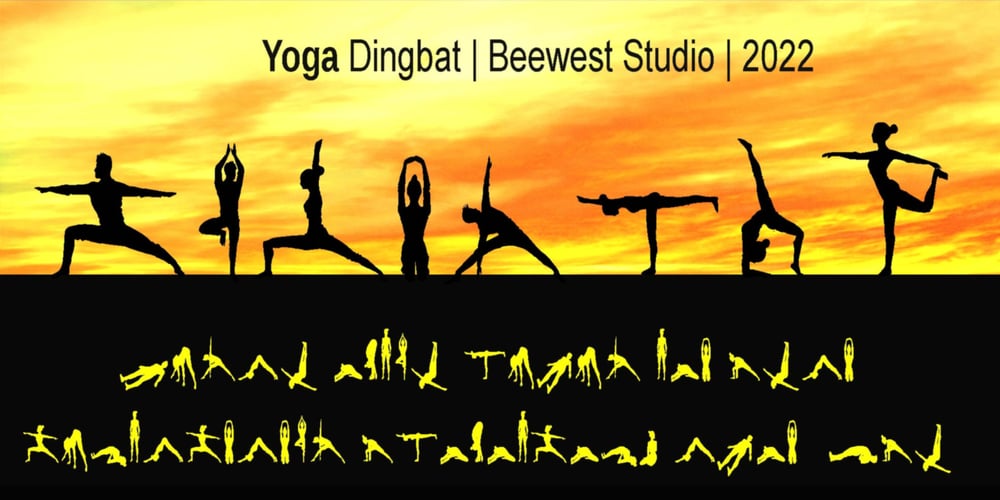
Yoga Dingbat
Yoga Dingbat font
Yoga Dingbat Font Family was designed by bsmbang wisudyantoro and published by Beewest Studio. Yoga Dingbat contains 1 styles and family package options. The typeface “YOGA Dingbats Symbols Set” is designed at 2022 for the font foundry Beewest Studio by B Wisudyantoro. The Basic Icons Set is a display typeface that inspired by the Yoga poses such as : Adho Mukha Shvanasana, Ardha Chandrasana, Astavakrasana.Baddha Konasana.Ankusasana from Sritattvanidhi. Bharadvajasana. Bhekasana. Bhujangasana. Bhujapidasana. Bidalasana. Marjariasana. Chaturanga Dandasana. Dhanurasana.Backbend. Durvasasana. Garbhasana . Vrikshasana,Tree pose,Garudasana, Eagle pose, Parsvakonasana, Side angle pose,Trikonasana, Triangle pose, Utkatasana, Chair pose,Ardha Chandrasana, Half moon pose, Viparita Virabhadrasana, Warrior Pose. For use in logos, magazines, posters, advertisement plus as webfont . This YOGA Dingbat Font is best in display size. Thank You for Use this Font.